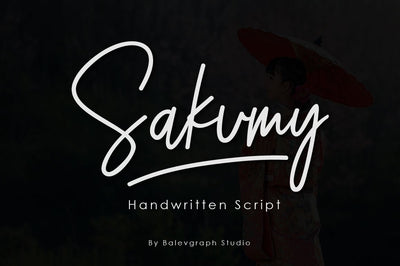
Sakumy Handwritten Script
Sakumy is a thin lettered and unique handwritten font. No matter the topic, this font will be an incredibly asset to your fonts’ library, as it has the potential to elevate any creation.
Sakumy would perfect for photography, watermark, social media posts, advertisements, logos & branding, invitation, product designs, label, stationery, wedding designs, product packaging, special events or anything that need handwriting taste.